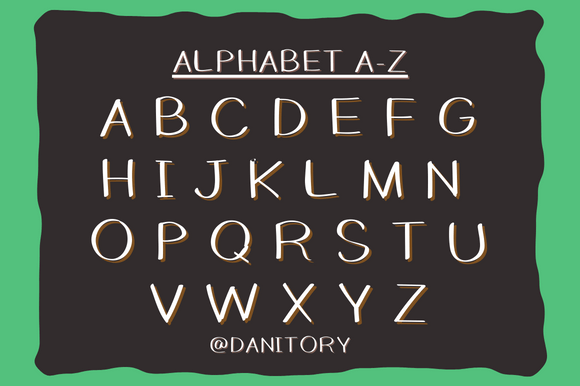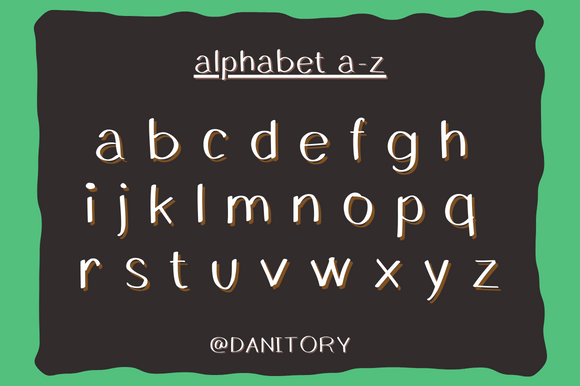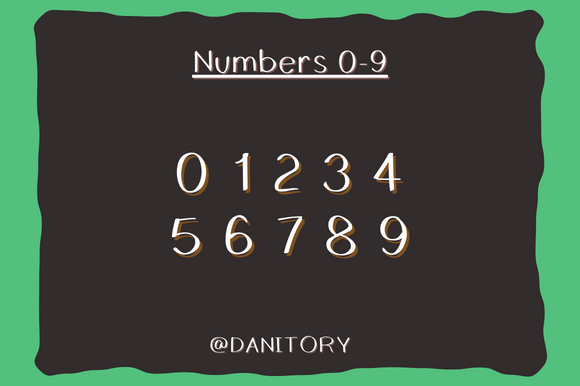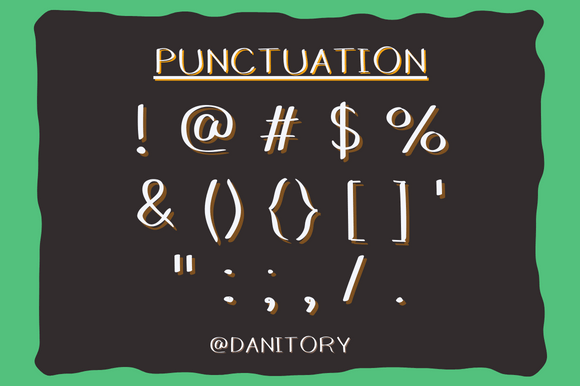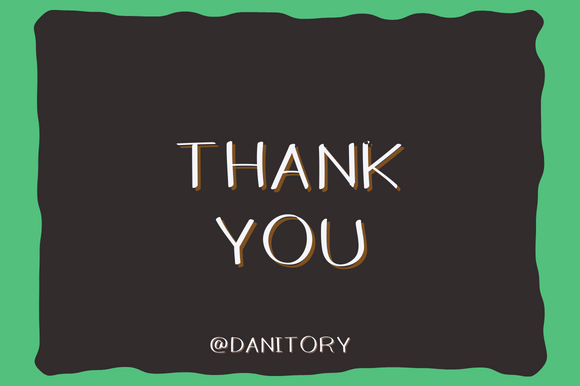
Introduction to Noona Font
Noona is a handwritten font that is rather soft.
It’s delicate and cute, perfect for crafts, digital design, presentation, or greeting card making This font has the potential to become your favorite font.